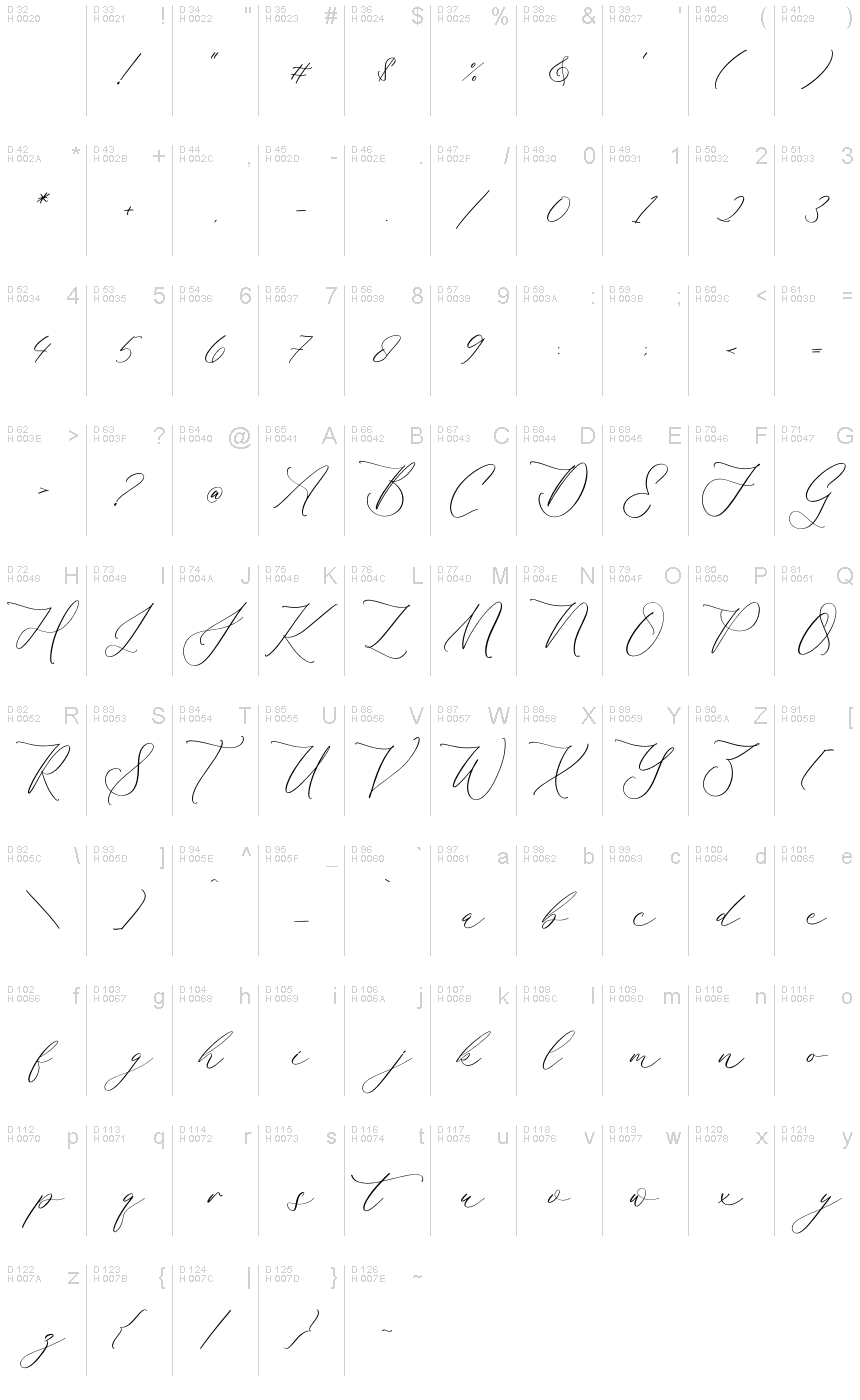
Harlyetta Mordila
Harlyetta Mordila, a captivating handwritten font created by Storytype Studio, exudes a delicate yet dynamic flair. This light-weight typeface enchants with its organic, fluid strokes and intricate flourishes, evoking a sense of effortless sophistication. The elegant curves and subtle variations in line weight lend an air of authenticity, making Harlyetta Mordila a versatile choice for a wide range of design applications.
Harlyetta Mordila's adaptable nature allows it to seamlessly integrate into branding materials, editorial layouts, or heartfelt stationery designs. Its expressive qualities make it an ideal selection for crafting captivating headlines, impactful captions, or heartfelt personal communications. The font's refined aesthetic effortlessly elevates the overall aesthetic, lending a touch of refined charm to any project.